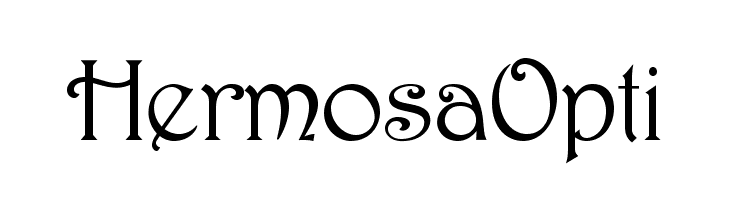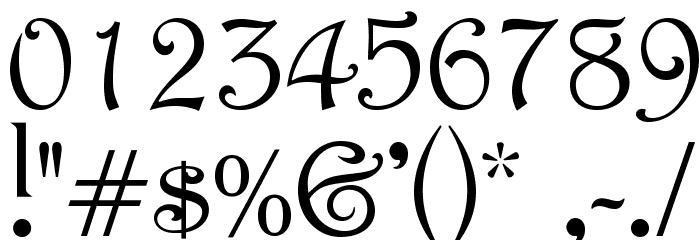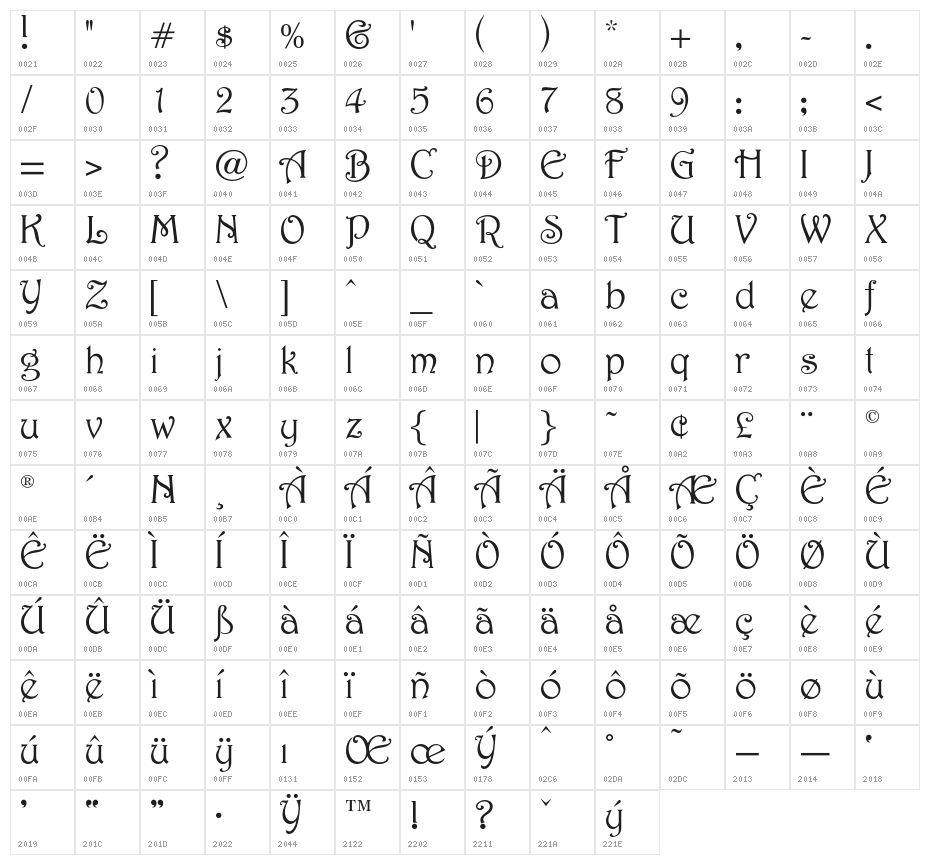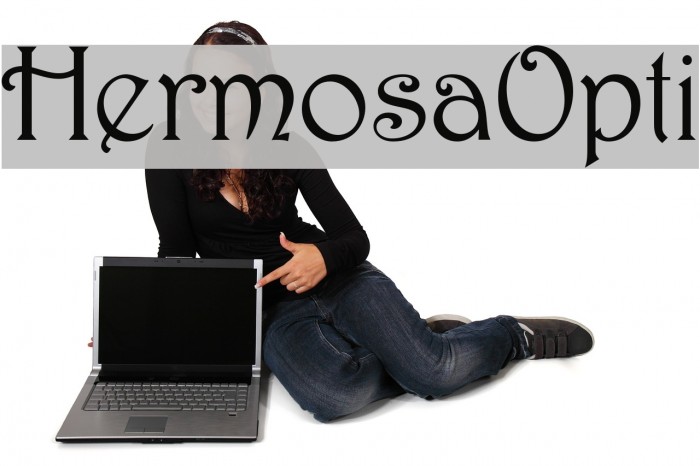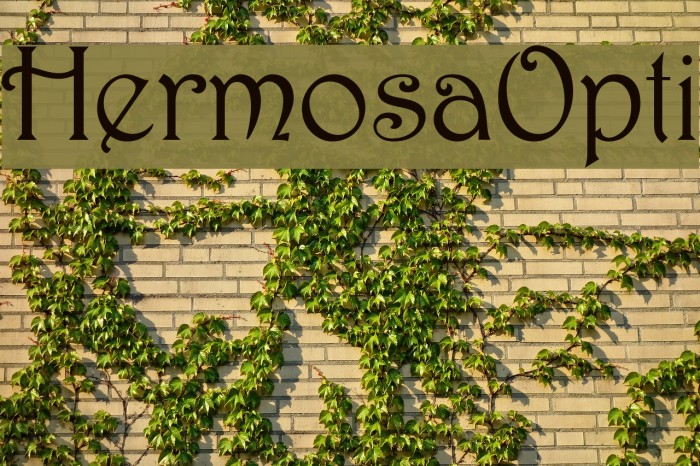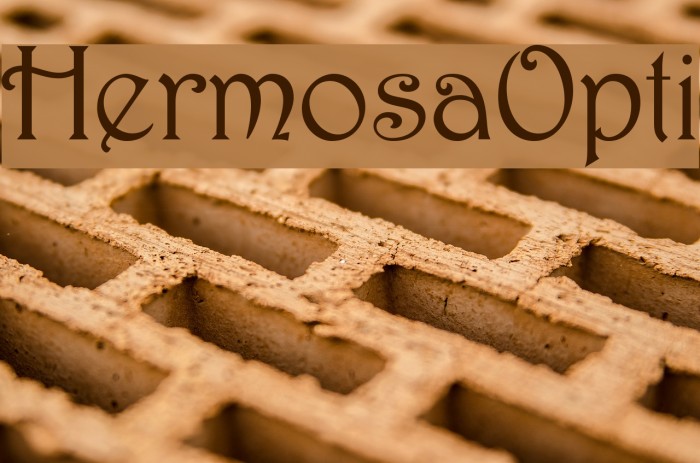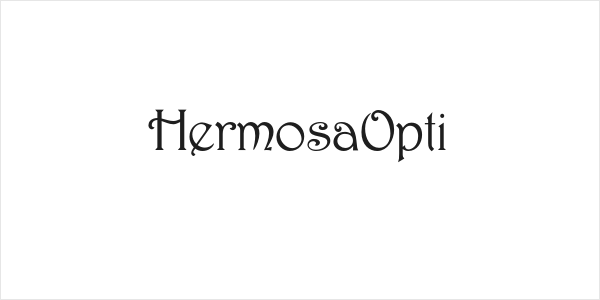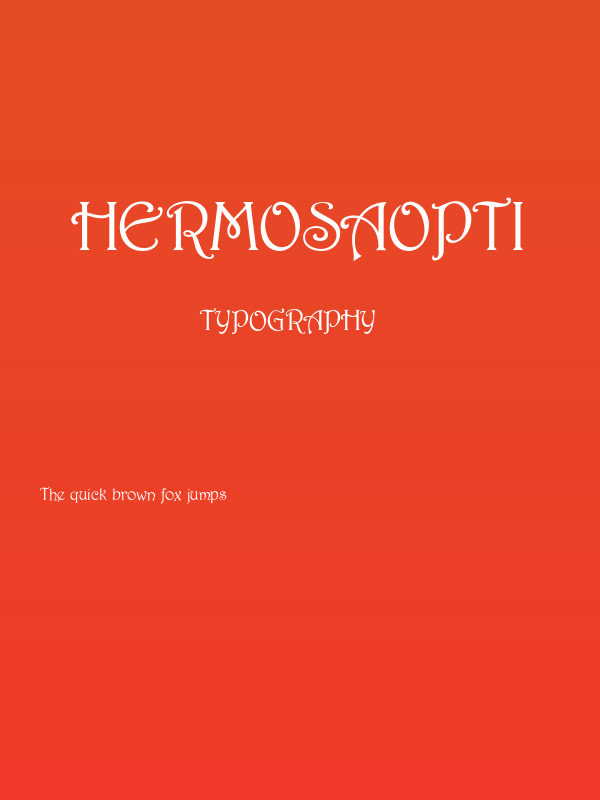
HermosaOpti Font
HermosaOpti Description
This font features an elegant and decorative style with a distinct flair in its letterforms. The uppercase letters are adorned with subtle flourishes, giving them a sophisticated and artistic appearance. The lowercase letters maintain a consistent style, with smooth curves and a slightly whimsical touch. The numerals are bold and clear, ensuring readability while maintaining the font's decorative essence. Special characters are designed to complement the overall aesthetic, adding a touch of elegance to punctuation and symbols. This font is suitable for projects that require a blend of classic and artistic elements.
| Proposed Projects | Ideal for wedding invitations, luxury branding, artistic posters, and decorative headings. |